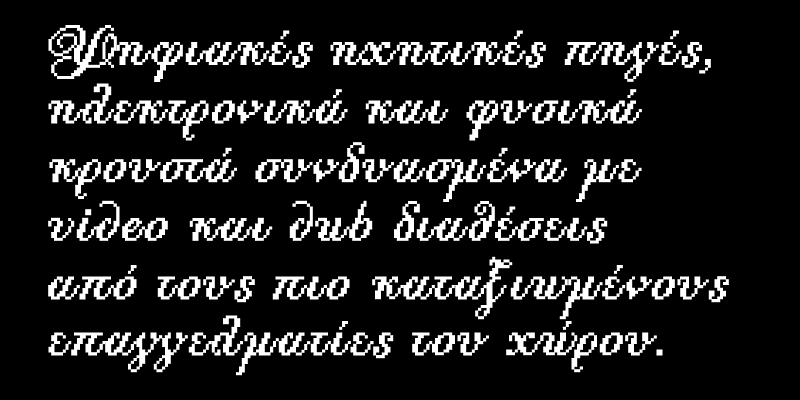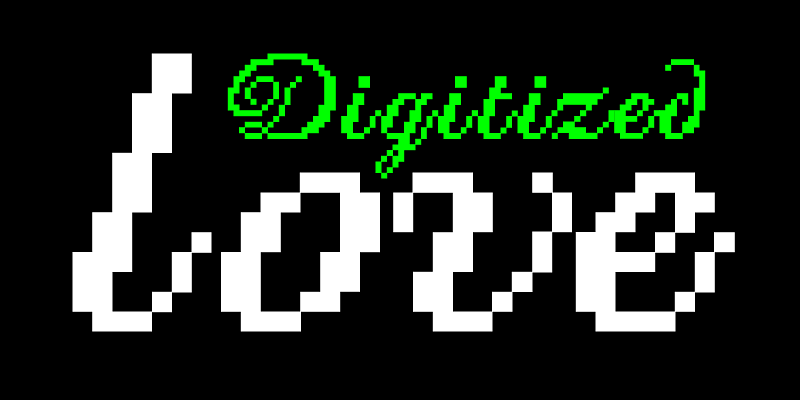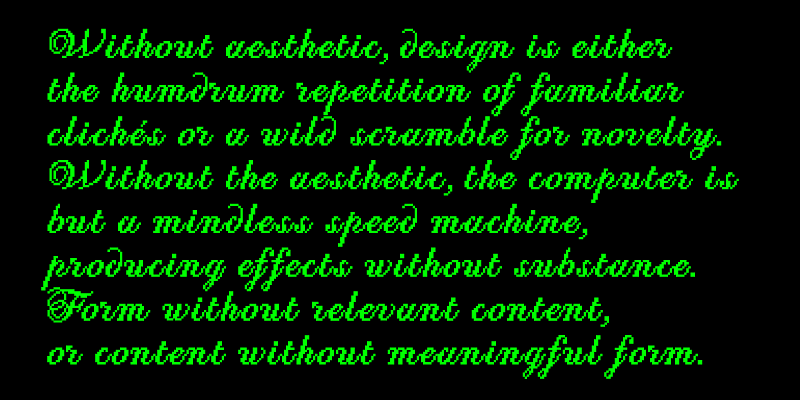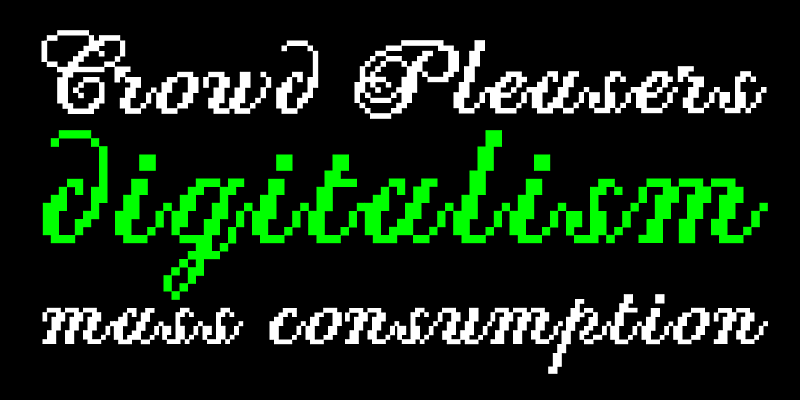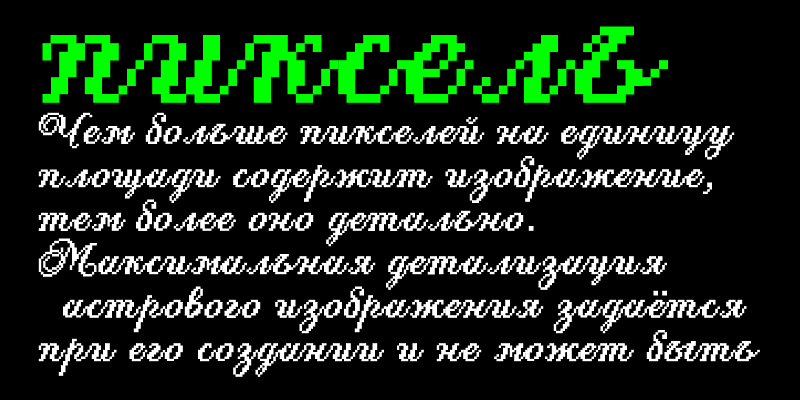
Pixelscript is a unique script pixel font which was carefully designed to be quite legible in web applications. Based on an earlier Parachute typeface, this is the only script pixel font that covers a wide range of languages and scripts like Latin, Greek and Cyrillic. Its large size (10x7 pixels) makes it suitable for titles. You may even use it for long legible text. Alternately use Photoshop to create gif icons for titles and/or web buttons. Finally you may use it in print applications at various sizes to create that extra digital aesthetic.